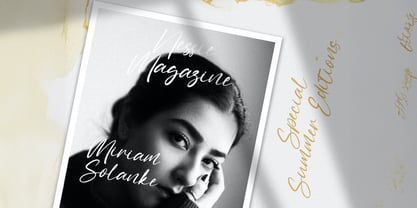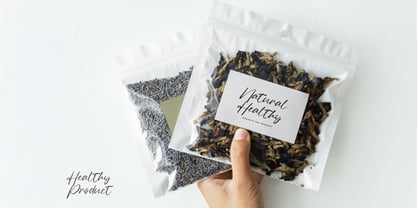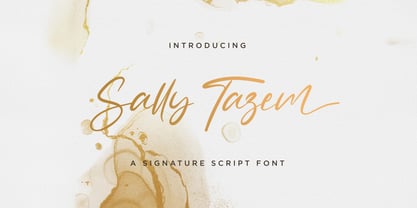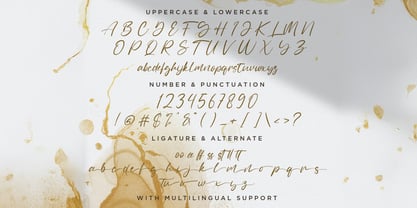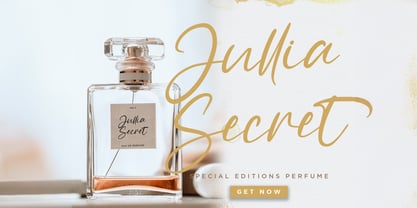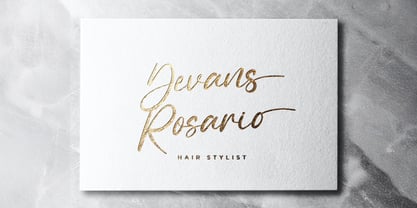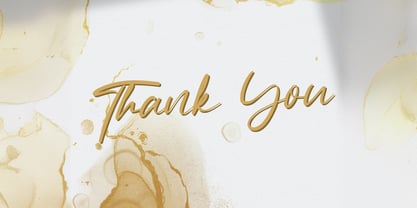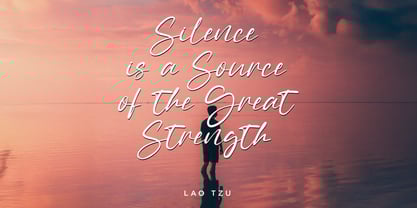
Sally Tazem
La familia tipográfica Sally Tazem fue diseñada por Virgiawan Listanto y publicada por Stringlabs Creative Studio. Sally Tazem contiene 1 estilos.
Sally Tazem is a playful and expressive handwritten font that captures the beauty of imperfect strokes and authentic personality. With its casual flair and natural flow, Sally Tazem brings a fun, friendly vibe to your designs like a note from a friend or a quick journal scribble full of heart.